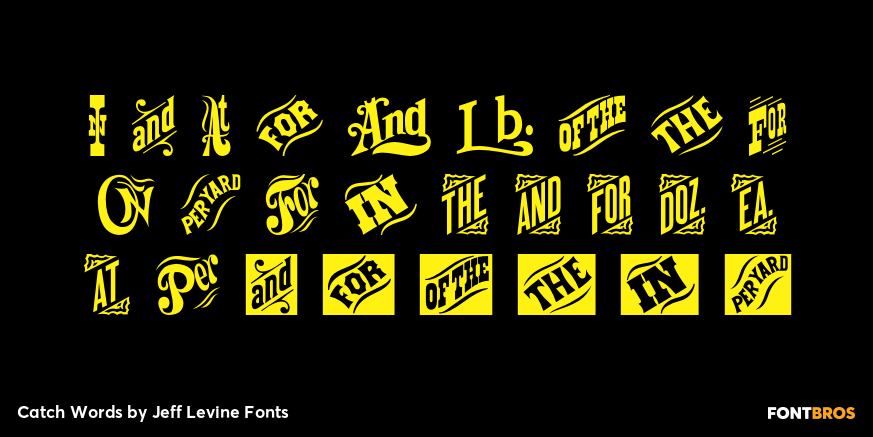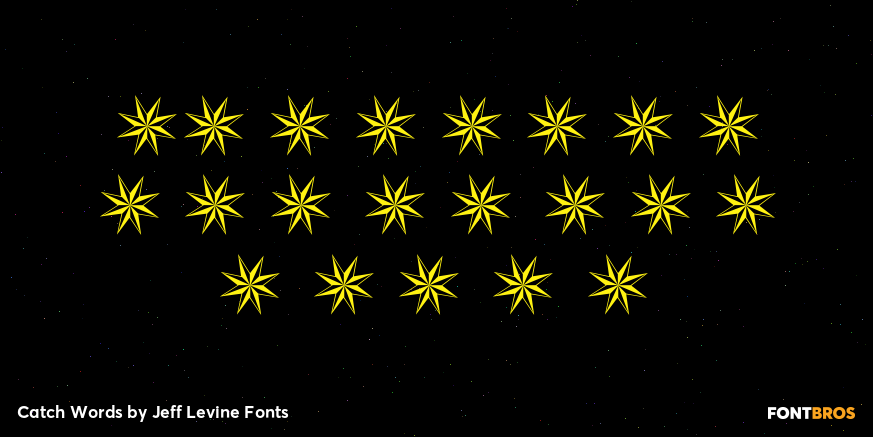
Catch Words
In the days of wood type, suppliers offered words such as 'and', 'at', 'for', 'each' and numerous others as stock cuts called "catch words". This collection of twenty-six were re-drawn using a vintage type catalog page as a model.